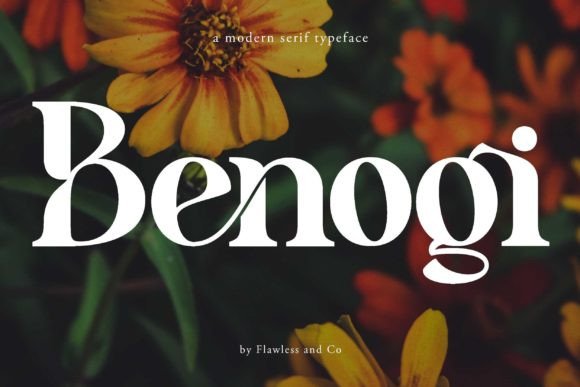
Unleash the beauty of your designs with Benogi Font, the epitome of class and style in the world of typography. Dive into the captivating world of serif fonts and discover a treasure trove of creative possibilities that await you.
Benogi Font is not just a collection of letters; it's an expression of art, a testament to the power of visual communication. Its fluid strokes, elegant curves, and timeless appeal will transform your designs into masterpieces.
Let Benogi Font be your muse as you embark on a creative journey, crafting stunning wedding invitations that exude romance and sophistication. Imagine your words dancing across the page, carried by the graceful lines of Benogi, leaving an everlasting impression on your guests.
Envision your stationery art adorned with the intricate details and timeless beauty of Benogi Font. Each handwritten note, each heartfelt message, will carry a touch of elegance that speaks volumes. Let Benogi Font elevate your stationery to an art form, transforming the mundane into the extraordinary.
Step into the vibrant world of social media and make a statement with eye-catching posts that demand attention. Benogi Font's captivating presence will turn your social media feed into a visual symphony, captivating your audience with its charm and sophistication.
But Benogi Font's versatility extends far beyond the digital realm. Unleash its potential in the world of branding and logo design, creating identities that exude professionalism, luxury, and timeless appeal. Benogi Font will elevate your brand to new heights, leaving a lasting impression on your customers.
With Benogi Font, the possibilities are endless. Its versatility knows no bounds, allowing you to explore a myriad of creative avenues. From marketing materials that leave a lasting impact to product packaging that speaks to your customers' hearts, Benogi Font will be your steadfast companion, transforming your designs into works of art.
Join the ranks of creative visionaries who have discovered the allure of Benogi Font. Embrace its beauty, harness its power, and embark on a journey where creativity knows no limits. Welcome to the world of Benogi Font, where design dreams come true.